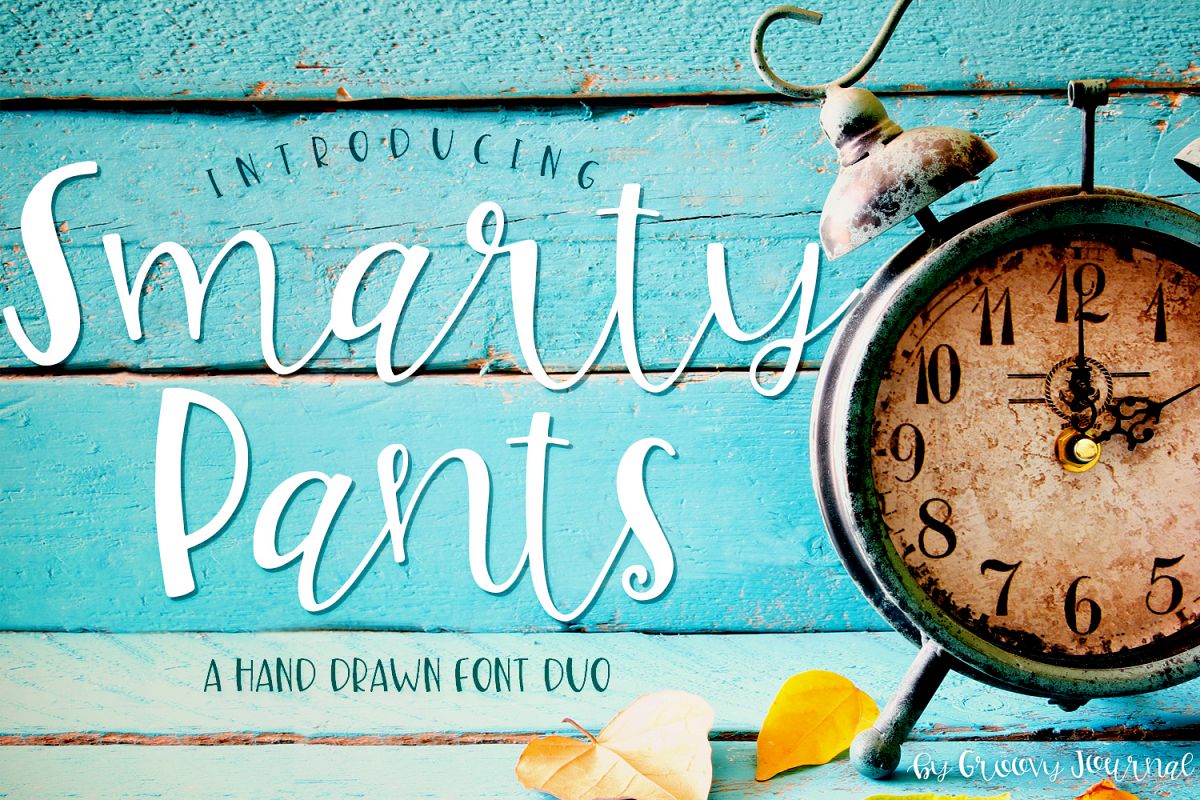
Inspired by my passion for hand-lettering, Smarty Pants Font Duo will give a delightful hand-lettered feel to any project! Includes .otf, .ttf, and .woff files. Please install the .otf for best results!